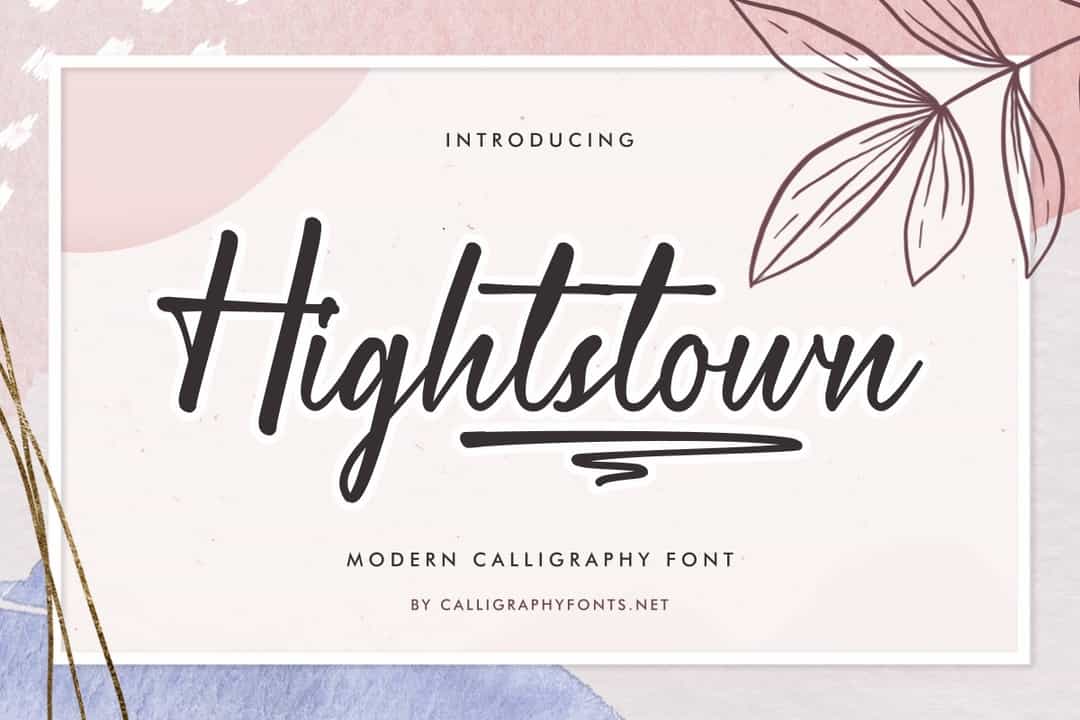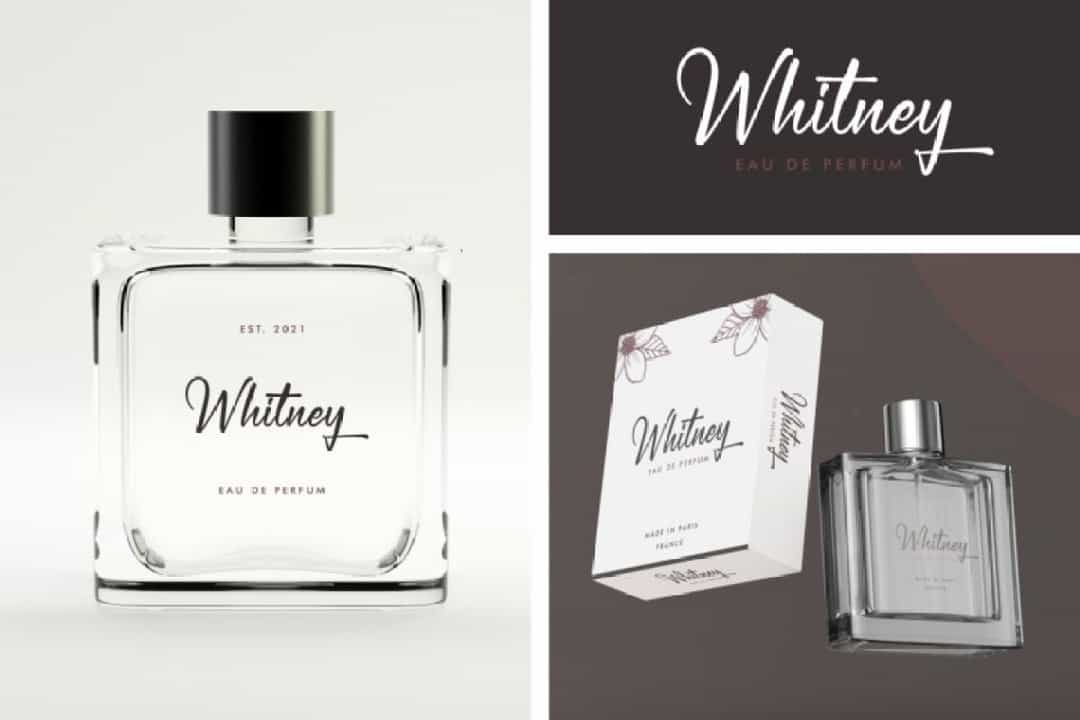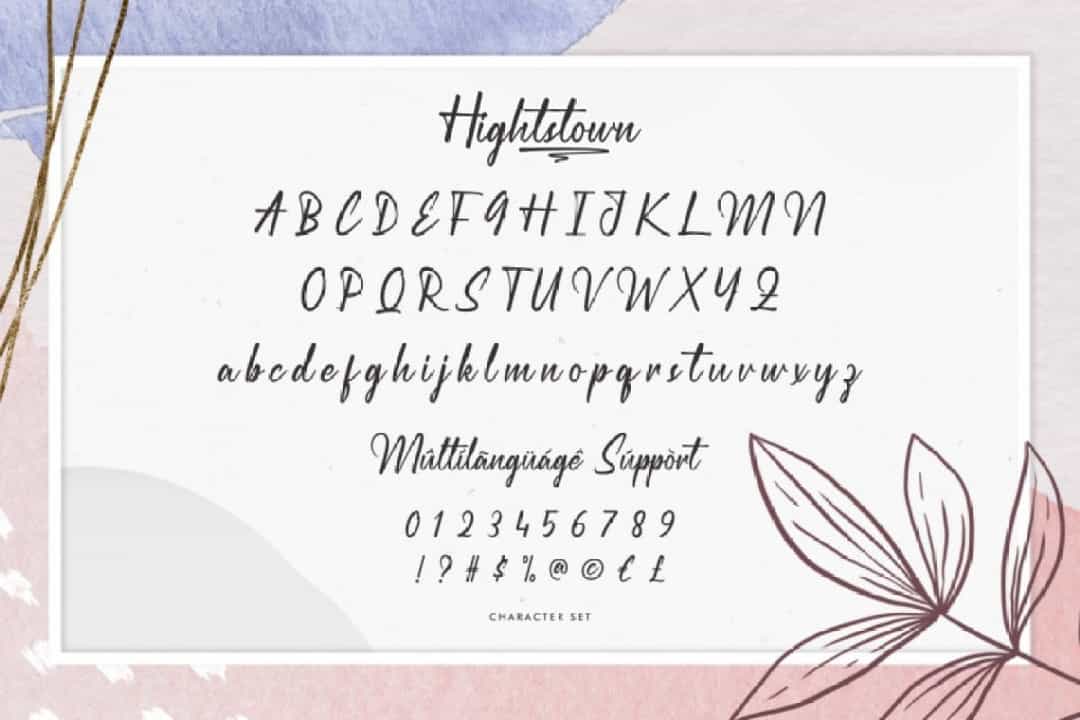
Discover Hightstown Font, part of the Calligraphy Handwritten collection—a versatile and unique font perfect for adding a personal touch to your projects. Download it for free and enjoy crafting designs with style, from invitations to social media posts. This font is available exclusively for personal use, giving you the freedom to create without limits. Unlock your creativity with Hightstown Font today!
Hightstown Font is a modern and distinct calligraphic script font. Featuring elegant modern designs with luxury brush strokes. Ideal for video, social media logotype, invitations and flyer use.